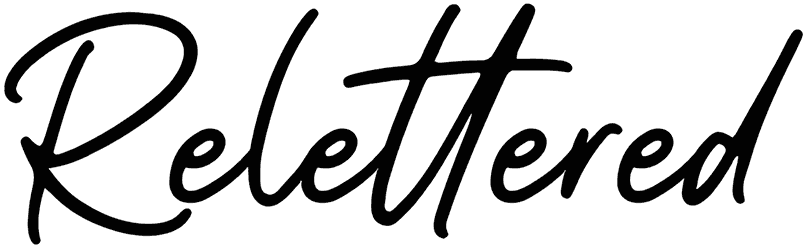
Relettered Font
As you explore the curves and loops of Relettered, it’s as if you can feel the pen gliding across the paper, and your creativity comes alive. Each letter in this handwritten font is imbued with a sense of individuality that reflects the spirit of the writer.
The expression of your creativity can invite the audience to discover new ideas through the lens of your designs. So use its power in writing letters, journals, and advertisements, and be surprised by the result.